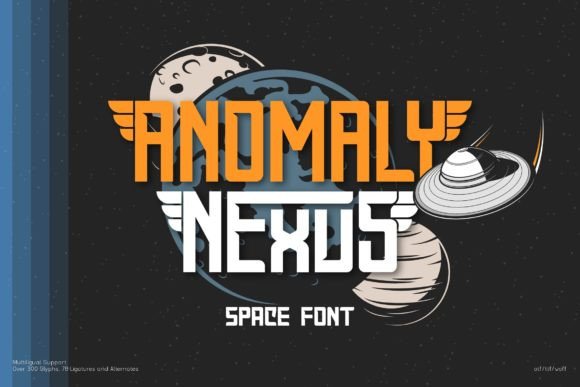
The Cosmic Quest for the Perfect Font: Discovering Anomaly Nexus
I’ll never forget the time I was working on a sci-fi themed project, pouring my heart and soul into creating an otherworldly atmosphere. The design was almost complete, but something was missing – the perfect font to top it all off. I scoured the internet, tried countless fonts, but none seemed to capture the essence of the cosmos. That was until I stumbled upon Anomaly Nexus, a space-themed font that would change the game.
First Impressions: A Futuristic Masterpiece
Anomaly Nexus is a font designed specifically for eye-catching titles and headers, and boy, does it deliver! Its futuristic look, sharp edges, and unique shapes make it perfect for sci-fi projects or any design that needs a bold, cosmic touch. The font’s sleek and modern design instantly elevates any project, giving it a professional and out-of-this-world feel.
- ✨ Futuristic design: Anomaly Nexus has a unique, otherworldly look that’s sure to turn heads.
- ✅ Versatility: This font is perfect for a wide range of projects, from sci-fi movies to video game titles, and even posters and flyers.
- 💻 OpenType features: Anomaly Nexus comes with a range of OpenType features, including stylistic alternates and glyphs, making it easy to customize and experiment with different looks.
⚠️ While Anomaly Nexus is an amazing font, it’s not without its limitations. Some users may find that the font can be a bit tricky to read at smaller sizes, so it’s best used for headlines and titles rather than body text.
The Designer Inspiration Behind Anomaly Nexus
Anomaly Nexus was designed by a team of creatives who are passionate about space and design. The font was inspired by the futuristic landscapes of sci-fi movies and video games, as well as the sleek, modern design of space-age technology. The designers wanted to create a font that would capture the essence of the cosmos, while also being versatile and easy to use.
Q: What is Anomaly Nexus?
A: Anomaly Nexus is a space-themed font designed for eye-catching titles and headers.
Q: What kind of projects is Anomaly Nexus best suited for?
A: Anomaly Nexus is perfect for sci-fi projects, video game titles, posters, flyers, and any design that needs a bold, cosmic touch.
Q: Is Anomaly Nexus easy to use?
A: Yes, Anomaly Nexus is easy to use and comes with a range of OpenType features, including stylistic alternates and glyphs, making it easy to customize and experiment with different looks.